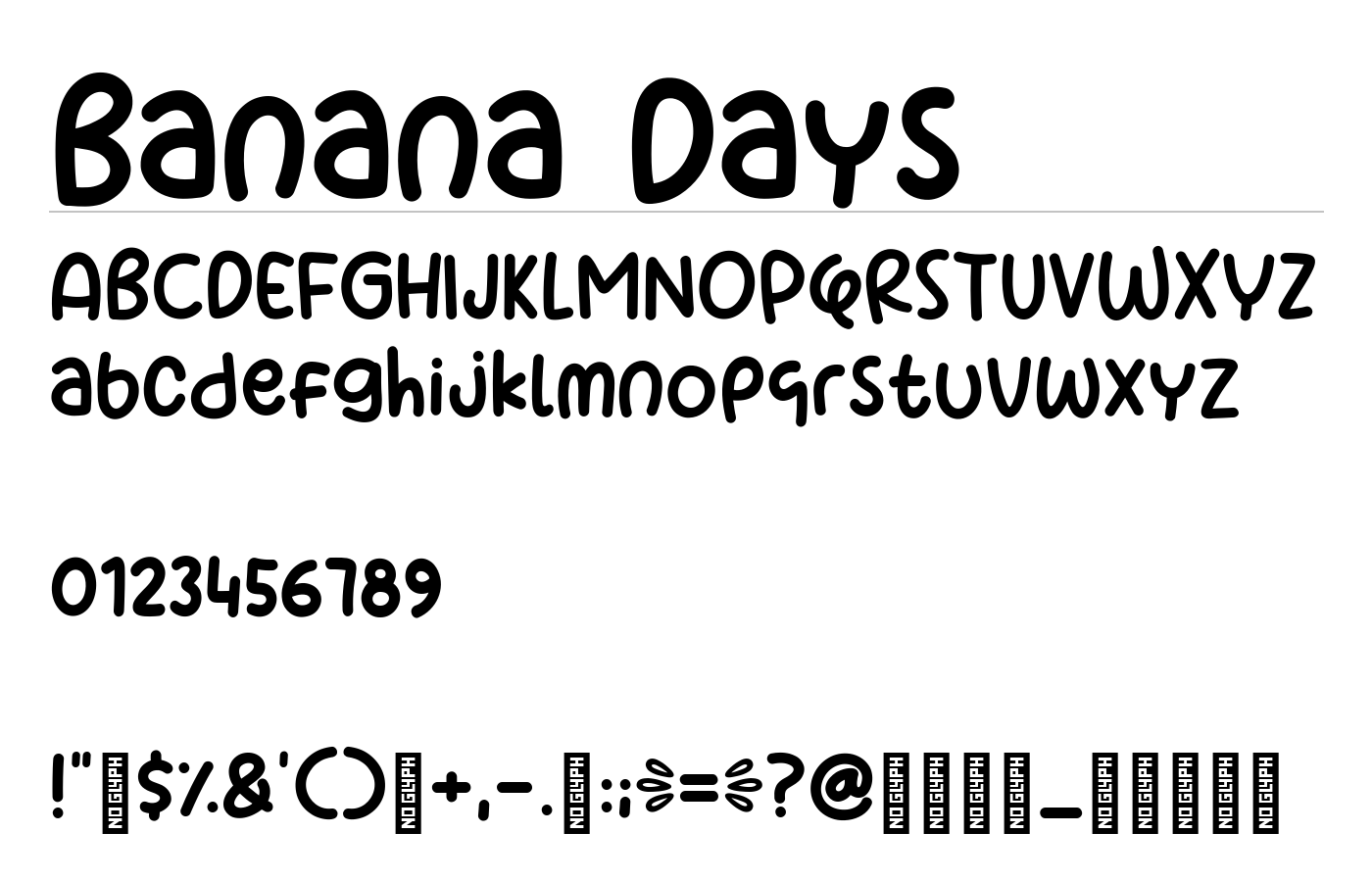
Banana Days is a playful and friendly sans serif font with a rounded, casual look reminiscent of hand-drawn letters. Its lively, slightly irregular shapes and medium weight give it a warm, approachable feel perfect for children's books, informal branding, or fun packaging. This font works best in headlines and logos where a cheerful, relaxed personality is desired.
Banana Days Font
About Banana Days Font